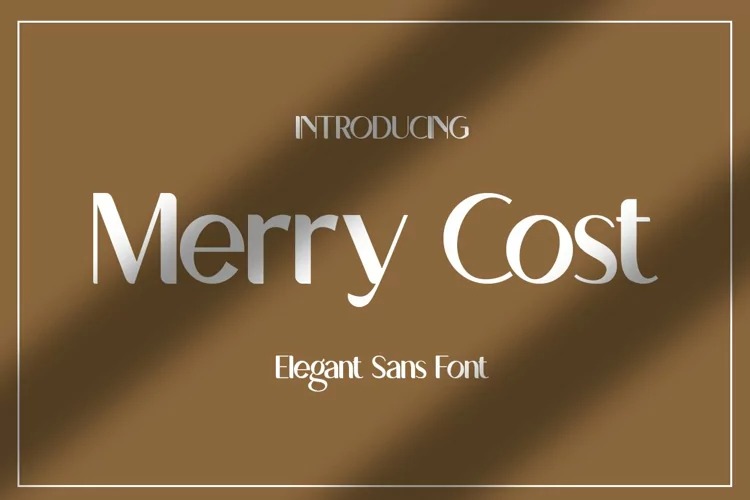
Merry Cost Sans Serif Font
This is a very interesting sans serif font set with curves like swimming fish. This font is perfect for fashion brand, apparel, shoes company, business card, logo brand, banner, and also business brand name like barber shop or taylor. This Font Template contains, Elegant, Creative, Cool and has a Unique Concept.